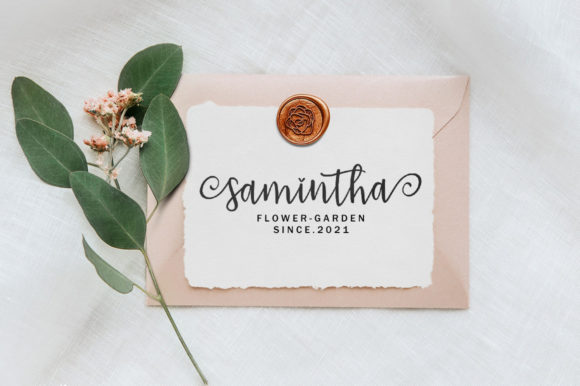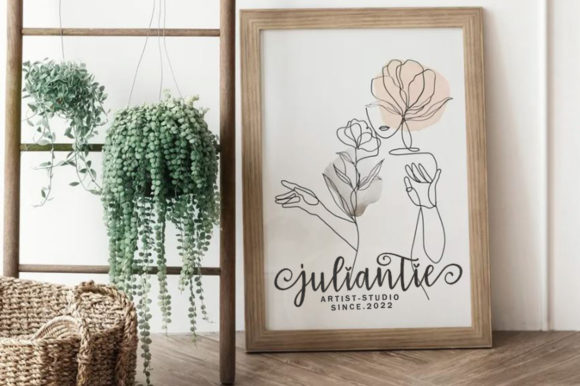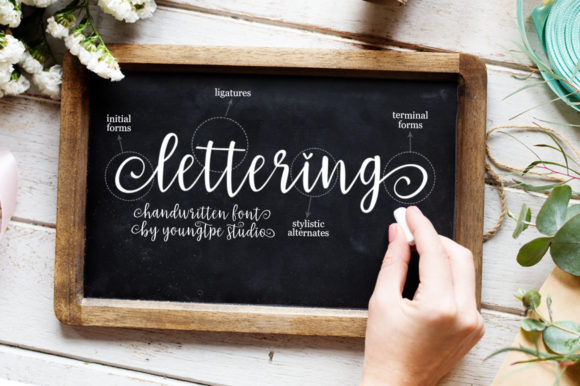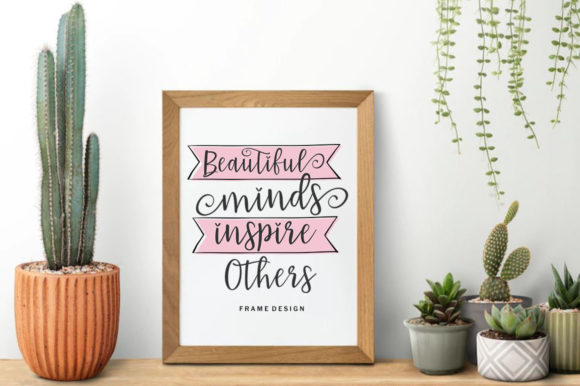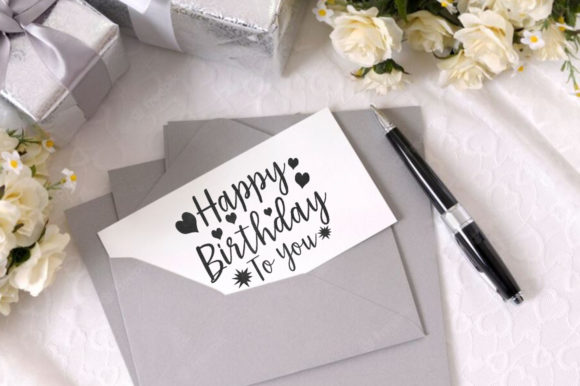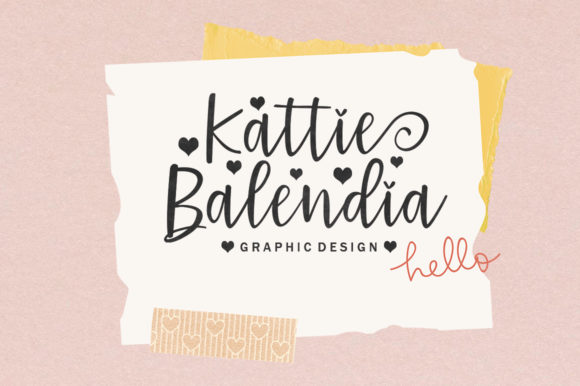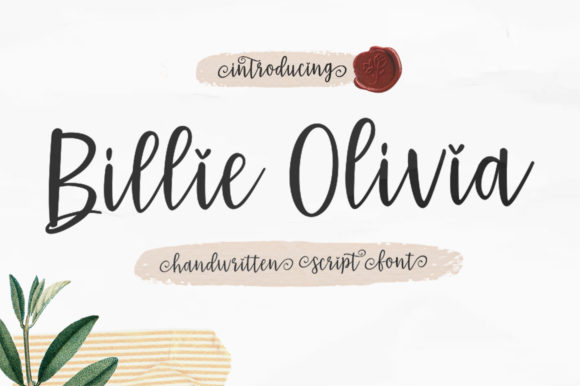
The Designer’s Delight: Billie Olivia Font
Have you ever been in the middle of a design project, pouring your heart and soul into it, only to get stuck on one thing: the font? I certainly have. It was a few months ago when I was working on a wedding invitation card for a client. The design was beautiful, but I just couldn’t find the perfect font to match the elegant and playful vibe of the couple. That’s when I stumbled upon the Billie Olivia font, and it was love at first sight! 💕
A Beautiful and Balanced Script Font
Billie Olivia is a free-flowing script font designed for packaging products, invitation cards, flyers, mockups, event posters, and anything else that requires high-quality vibes. This font has a beautiful and balanced character that fits well with the large design pool. It’s perfect for designers, crafters, and creative hobbyists who want to add a touch of elegance and sophistication to their designs.
So, what do I love about the Billie Olivia font? Here are a few things:
- ✨ Beautiful and elegant design: The font has a unique and stylish look that will elevate your designs.
- ✅ PUA encoded: This means you can access all of the glyphs and swashes with ease, making it easy to customize your designs.
- 💯 High-quality vibes: The font is perfect for professional designs, such as business cards, brochures, and posters.
And, like any font, it’s not perfect. Here are a few small quirks:
- 🤔 Limited use in small sizes: The font can be a bit tricky to read in small sizes, so it’s best used for larger designs.
- ⚠️ Not suitable for body text: The font is best used for headings and titles, rather than body text.
The Story Behind Billie Olivia
Billie Olivia was designed by a team of typographers who wanted to create a beautiful and elegant script font that would inspire designers and creatives. The font is named after the combination of two popular names, Billie and Olivia, which represent the fusion of classic and modern styles.
Q: What is the Billie Olivia font?
A: The Billie Olivia font is a free-flowing script font designed for packaging products, invitation cards, flyers, mockups, event posters, and anything else that requires high-quality vibes.